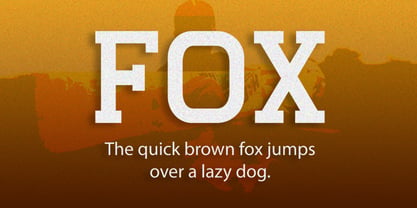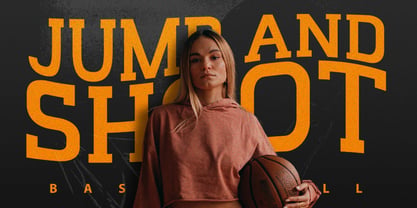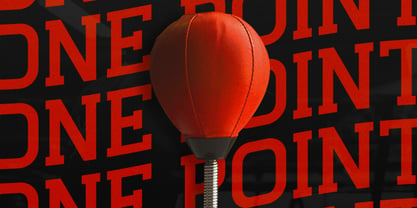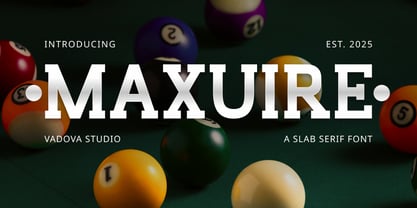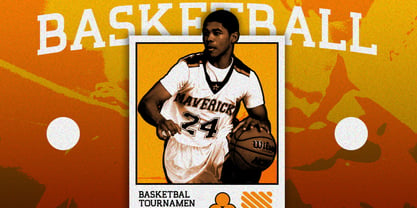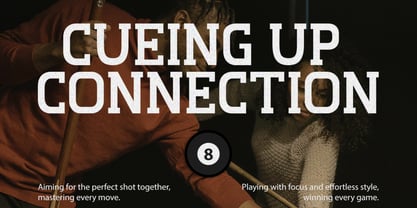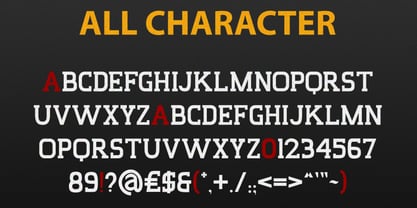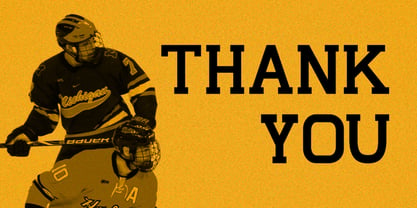
Maxuire
Maxuire is a strong, slab serif typeface designed to command attention. Inspired by athletic branding, vintage sports posters, and competitive energy, Maxuire delivers bold letterforms with solid geometric structure. The square serif details create a sense of balance and strength, making it perfect for dynamic headlines, editorial titles, and anything that needs confident character. This font brings energy into your layout great for sports events, posters, college themes, or any project that wants to make a loud and proud statement. Suitable for is ideal for design sports posters, athletic brand logos, retro event flyers, editorial layouts, bold signage, and branding that requires strength and clarity. It’s also great for basketball, cue sports campaigns essentially anything that wants to blend tradition with high-energy appeal.
Maxuire